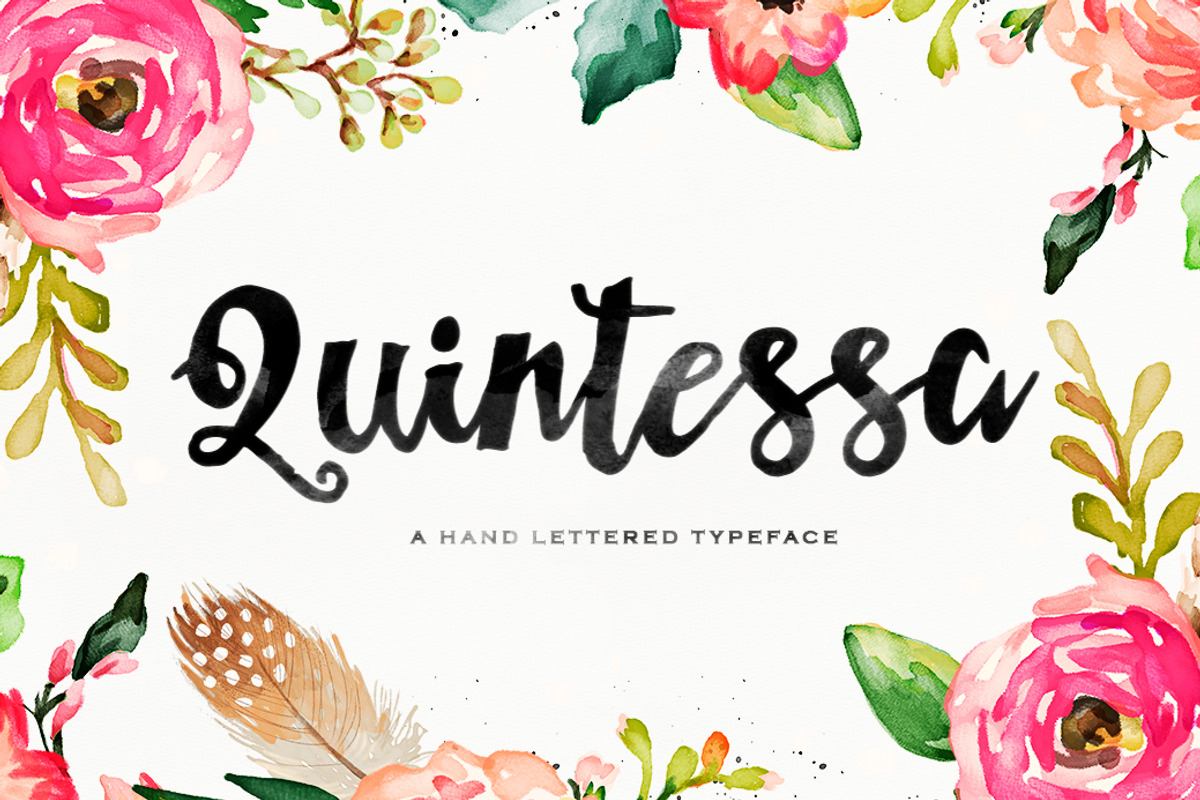
Quintessa Font Free Download is an elegant and luxurious script typeface designed to bring sophistication and charm to your creative projects. With its flowing strokes, graceful swashes, and hand-lettered beauty, Quintessa is perfect for wedding invitations, branding, signature logos, social media graphics, and high-end packaging.
Crafted with attention to detail, Quintessa Font Free Download captures the essence of modern calligraphy while maintaining excellent readability. Its stylish curves and fluid movement make it a go-to choice for designers looking to add a romantic or upscale flair to their typography.
Whether you're designing for a boutique, a personal brand, or an elegant event, Quintessa pairs beautifully with minimalist serif or sans-serif fonts for a balanced and refined look.